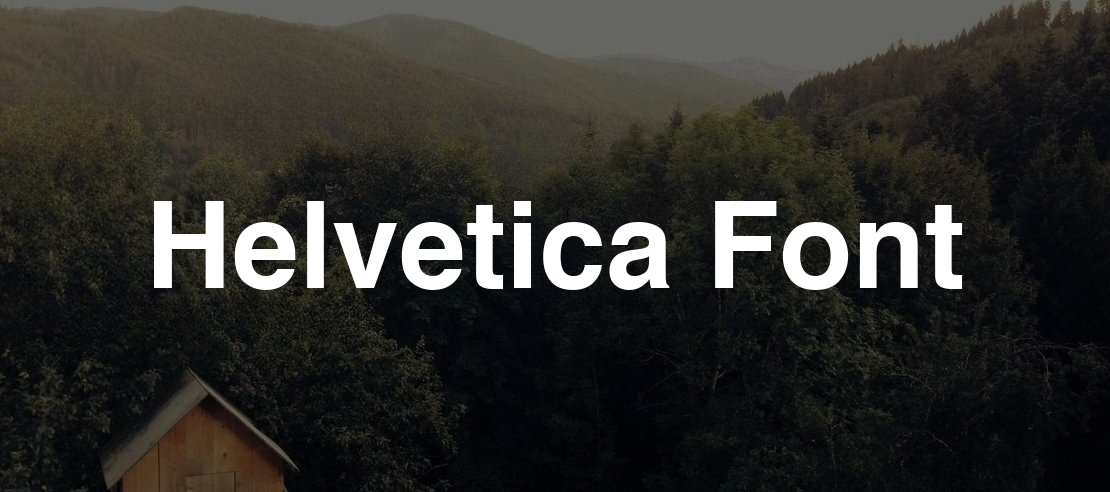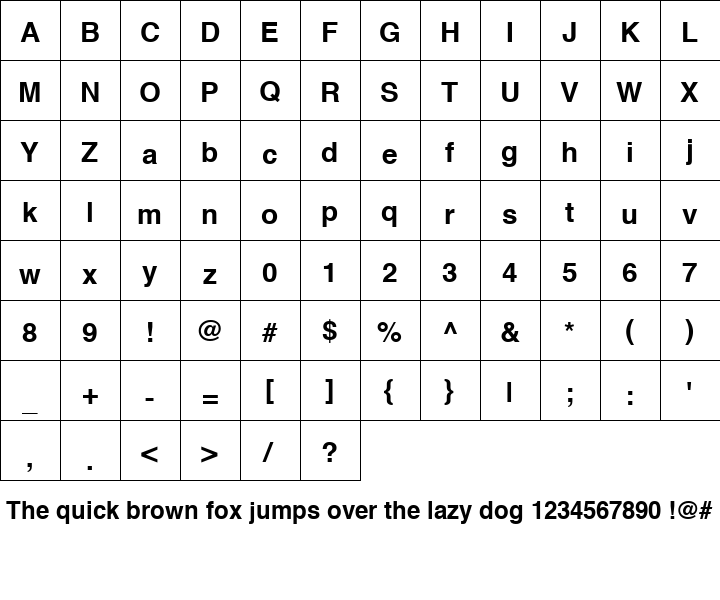
Helvetica Font belongs to the Sans serif typeface family. Many graphic and typography designers are well aware of this font and utilize this typeface in their various projects and proposals.
The texture appearance of this font is influenced by many designers and it is one of the top trending typefaces that was utilized in the 19th Century. This font style is also known as Neue-Haas-Grotesk. If you want to create a project of design with perfect readability then you don’t have a need to search for any other font.
The character of this typeface is designed with the perfect readability that is compatible with both small and big size displays. The font of the typeface is so legible that can easily be read from a far distance. Because of its amazing pairing nature, it can make a great combination with the helvetica bold font.
Designer of Helvetica Font
This clean and readable texture style is created by a Swiss Designer named Max Medinger. He is Swiss typography and graphic designer who has also taken part in the typography world and created many popular typographies. As the popularity of its work increases the fame of the designer also increases.
This font is the major reason for his popularity. As this font is used by the US government in many designs, Italian Manufacturing company, Casino S.p.A. is also using this typeface in their monogram.
This font style is comprised of one of the biggest families in the Sans-Serif font family. This font family includes 36 unique styles. All of them included uppercase, lowercase letters, punctuations, symbols, special characters, multi-language support, and numbers that increase the worth of this font.
What is Helvetica font?
It is a type of Sans-Serif typeface font family. This wide and amazing font family is created by Max Medinger.
What font is closest to Helvetica Font?
Some of the typographies are really similar to this font texture. But, helvetica neue font has the utmost similarities to this font. So, feel free to use this typeface as an alternative to this font style.